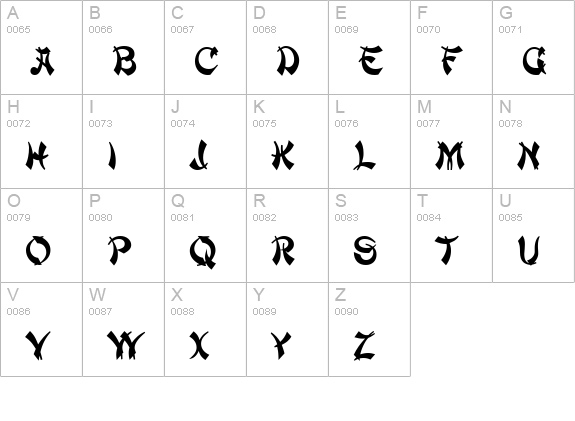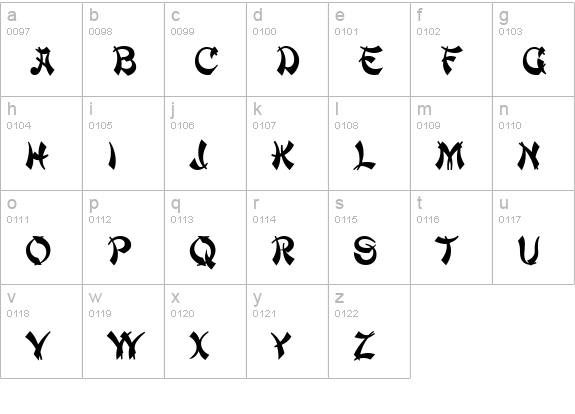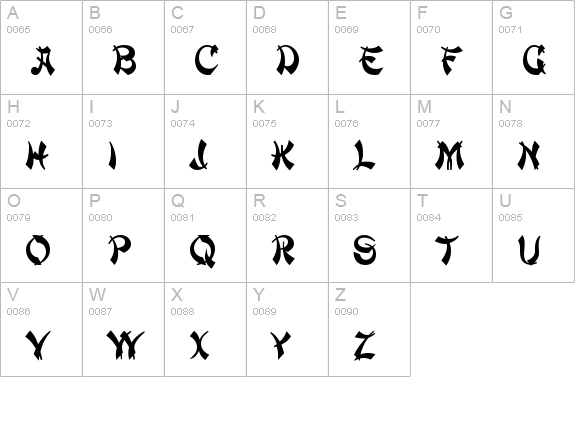
Deng Thick Font Details
Deng Thick font is a bold and eye-catching display typeface that exudes strength and confidence. Its thick, robust letterforms make a powerful statement in any design project, whether it be for headlines, posters, or branding materials. The sturdy and commanding presence of Deng Thick font demands attention and leaves a lasting impression on the viewer. As a versatile typeface, Deng Thick font can be used in a variety of design applications to add a touch of boldness and impact. Its clean lines and strong strokes make it a perfect choice for projects that require a strong and striking visual presence. Best of all, Deng Thick font is available for free download at FontsMarket.com. This means that designers and creatives can easily access this powerful typeface and incorporate it into their projects without any cost. Whether you are looking to make a bold statement or add a touch of strength to your designs, Deng Thick font is the perfect choice for all your typographic needs. Download it today and unleash the power of bold typography in your designs.